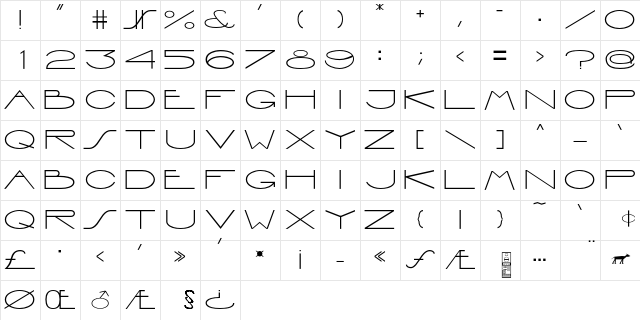
Interdimensional Regular
Design Context for Interdimensional Typeface
Interdimensional is a composed and adaptable typeface that performs quietly and consistently across a wide range of design contexts.